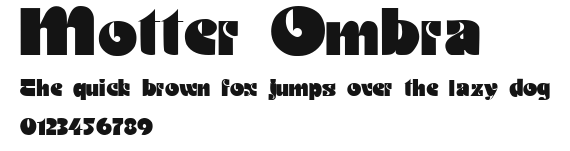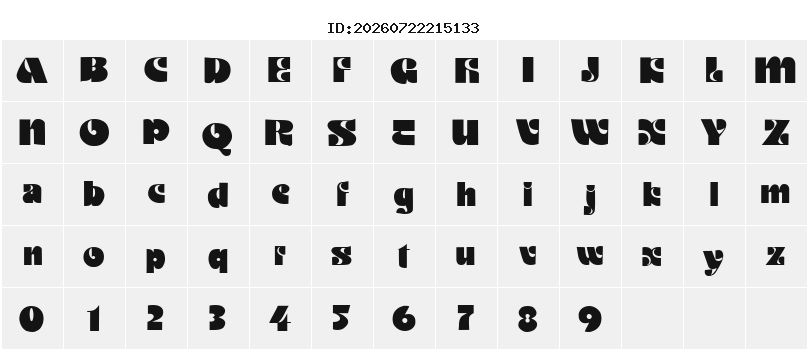
Motter Ombra Preview
• Font Name: Motter Ombra
• Full Font Name: Motter Ombra
About Motter Ombra.ttf
Motter Ombra.ttf is a modern, elegant sans-serif font designed for ultimate readability and visual harmony. Perfect for branding, headlines, web design, and print materials.